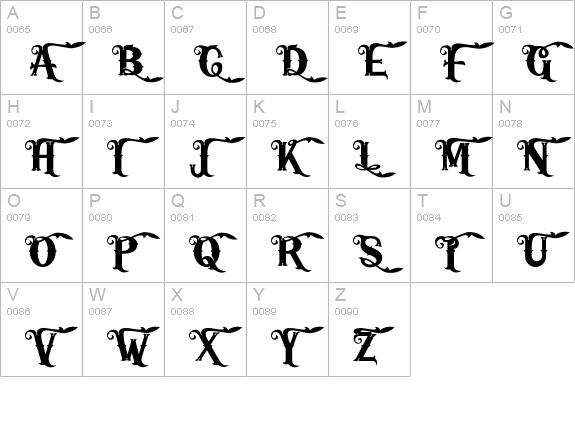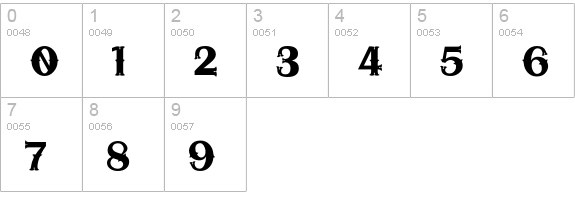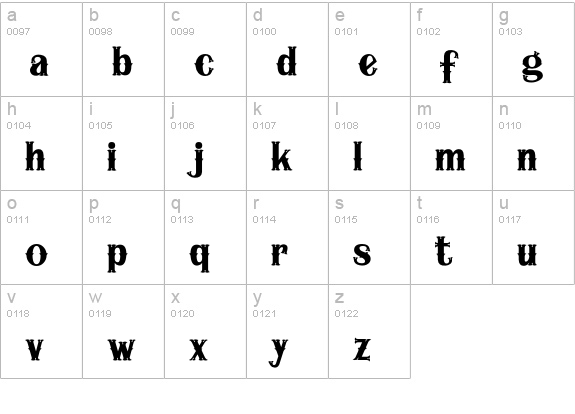
Iorek Byrnison ornate Font Details
Iorek Byrnison ornate font is a stunning and intricate typeface that exudes elegance and sophistication. Its ornate details and intricate flourishes make it a perfect choice for projects that require a touch of luxury and refinement. This font is meticulously crafted with attention to detail, making it a standout choice for invitations, branding, and other design projects where a touch of opulence is desired. The best part about Iorek Byrnison ornate font is that it is available for free download at FontsMarket.com. This means that you can easily access this beautiful font and use it in your projects without any cost. Don't miss out on this opportunity to add a touch of luxury to your designs with Iorek Byrnison ornate font, available for free at FontsMarket.com.